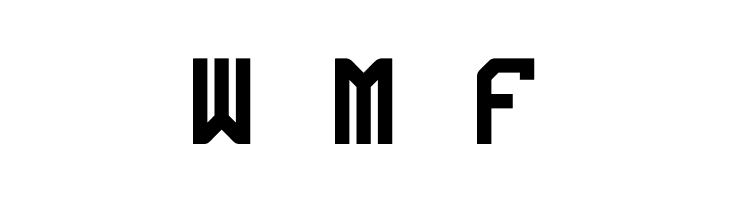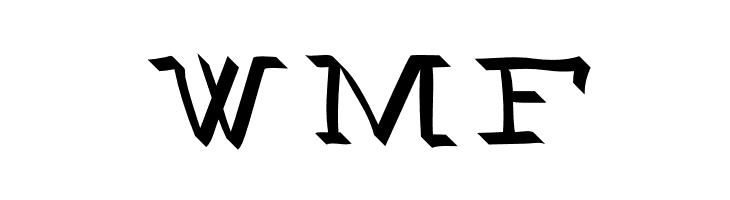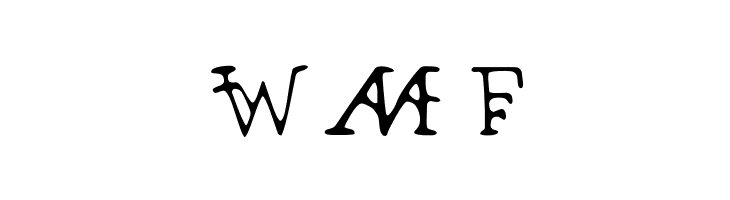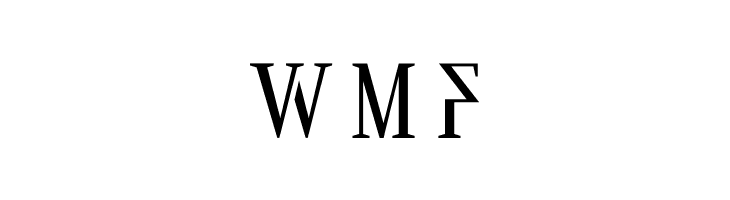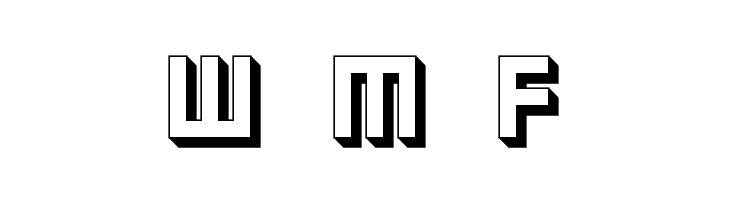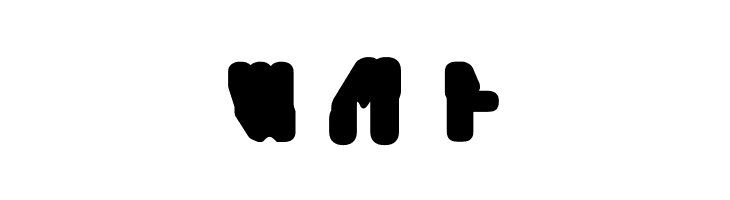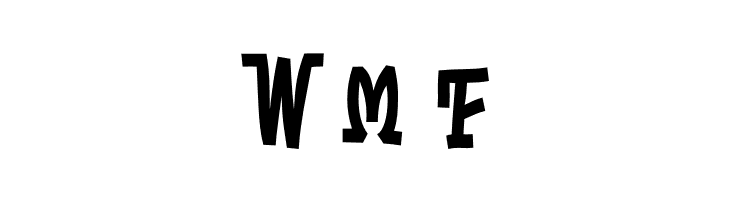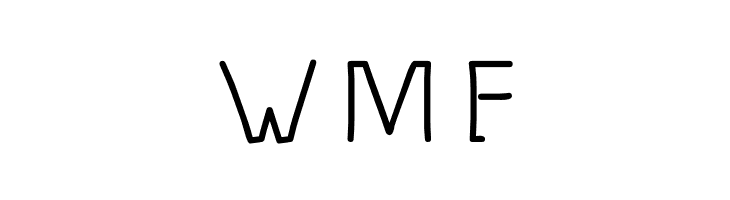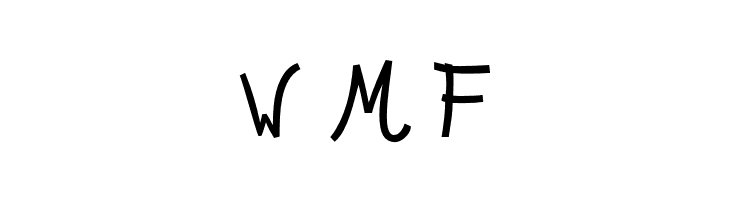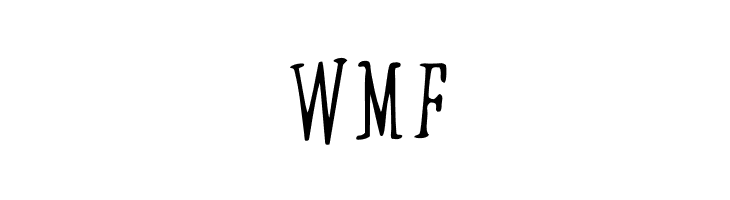
A modern, demi-condensed sans-serif font with consistent stroke width and excellent readability.
A bold serif typeface with a classic and authoritative style.
A bold, slanted serif typeface with a classic and authoritative style.
A monospaced typewriter-style font with a vintage, mechanical charm.
An elegant serif italic typeface with a classic and sophisticated style.
A classic typewriter-style font with medium weight and variable width.
A classic serif font with elegant serifs and balanced proportions, ideal for formal and academic use.
A classic serif font with a slanted, elegant style and moderate contrast.
A bold, geometric font with an industrial and modern design.
A bold, geometric monospaced font with a modern, technical style.
A bold, angular font with a futuristic and edgy design.
A rugged, distressed font with jagged edges and a bold presence.
A decorative and whimsical font with bold, dynamic strokes and playful curves.
A modern serif font with angular serifs and sharp edges, offering a blend of classic and contemporary styles.
A bold, 3D block-style font with a shadow effect for a striking visual impact.
A bold, geometric font with a playful and modern aesthetic.
A bold, graffiti-inspired font with sharp, angular lines and a modern edge.
A playful and dynamic handwritten font with fluid, expressive strokes.
A playful, rounded font with smooth curves and a hand-drawn feel.
A playful, handwritten-style font with a whimsical and dynamic appearance.
A playful, hand-drawn font with a whimsical and energetic style.
A sharp, angular font with a jagged, thorn-like appearance.
A bold, decorative font with sharp, angular serifs and a gothic appearance.
A flowing, cursive script font with elegant, interconnected characters.
A bold, rounded font with a modern and playful style.
A bold, decorative font with a distressed, textured style.
A bold, decorative script font with elegant swashes and playful curves.
A modern, outlined font with geometric precision and a futuristic aesthetic.
An elegant serif font with italicized characters and medium contrast.
A bold, geometric font with angular lines and circular dots, offering a modern and artistic style.
A playful and whimsical font with flowing, irregular strokes and dynamic movement.
A bold, geometric font with a modern and impactful design.
A playful, rounded font with smooth, flowing lines and consistent stroke width.
A modern, rounded font with a monolinear stroke and friendly appearance.
A playful, rounded font with a cursive-like style, perfect for informal and educational uses.